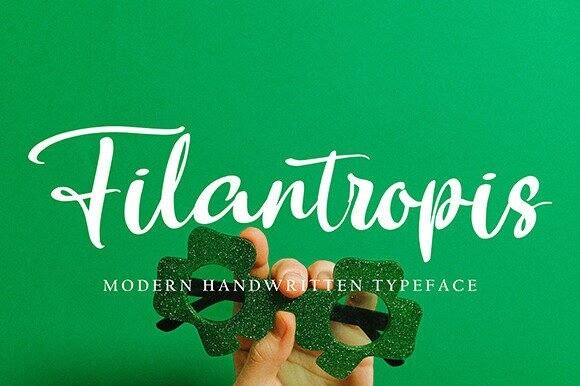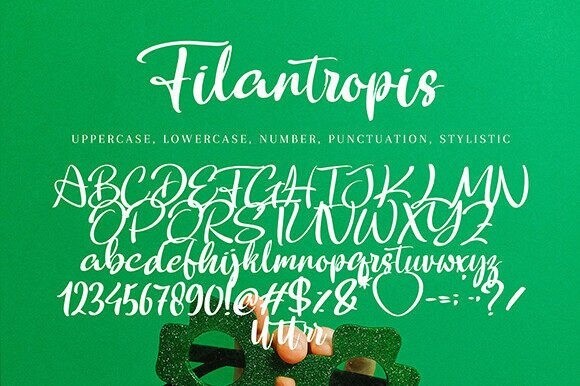
Filantropis Font
Filantropis Font is a stylish and incredibly elegant script font. It looks stunning on wedding invitations, thank you cards, quotes, greeting cards, logos, business cards and every other design which needs a handwritten touch.